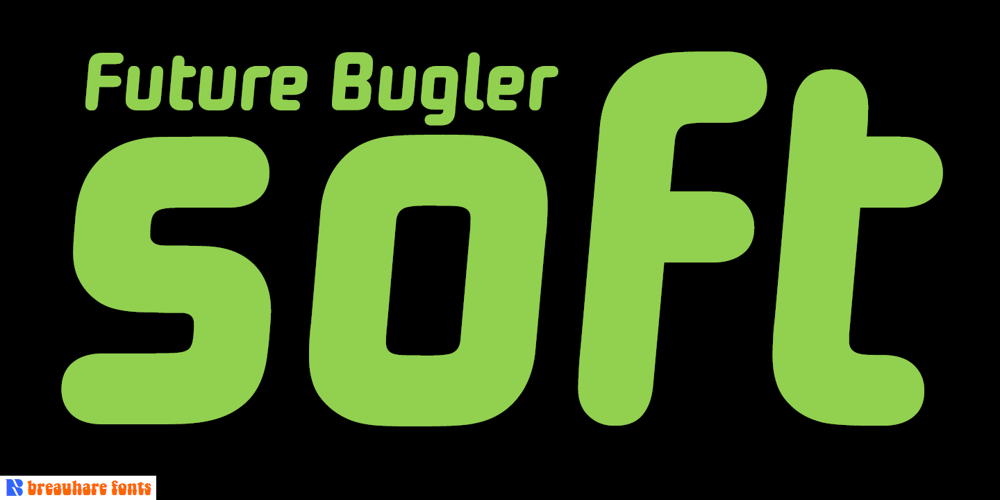
Future Bugler Soft
Future Bugler Soft font
Future Bugler Soft Font Family was designed by Harry Warren and published by Breauhare. Future Bugler Soft contains 3 styles and family package options. Future Bugler Soft is a soft version of Future Bugler, a font based on the second logo created by Harry Warren in early 1975 for his sixth grade class newsletter, The Broadwater Bugler, at Broadwater Academy in Exmore, Virginia, on Virginia’s Eastern Shore. This font can convey several perspectives or moods. It can suggest a space-age vision of the future, or an art-deco perspective of the future as in the movie “Sky Captain and the World of Tomorrow”. It also communicates the idea of high performance, or extreme sports, without the grunge. Also check out its siblings, the original Future Bugler, and Future Bugler Upright. Digitized by John Bomparte.